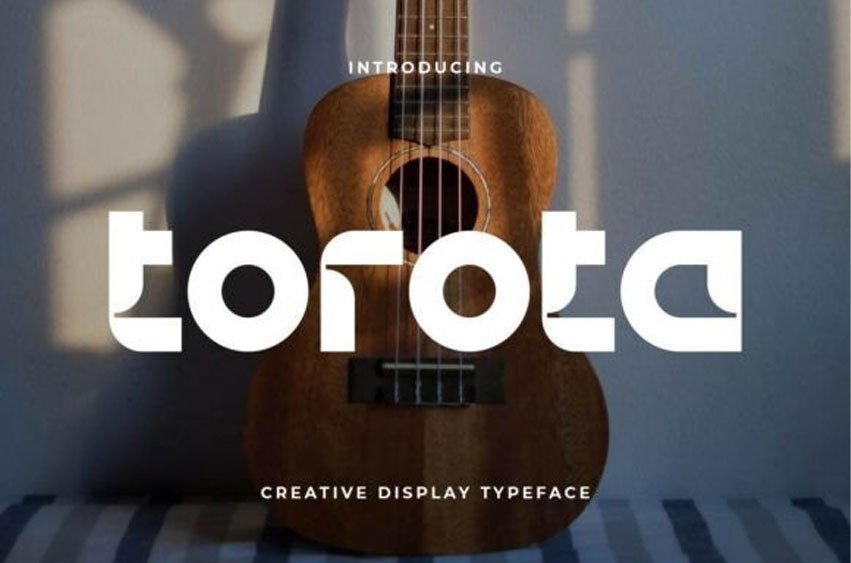
Torota Font
Torota Font is a modern display sans serif typeface designed to create strong and eye-catching typography.
With clean lines, balanced proportions, and a bold visual presence, Torota is perfect for headlines, posters, branding, logos, packaging, and contemporary design projects.